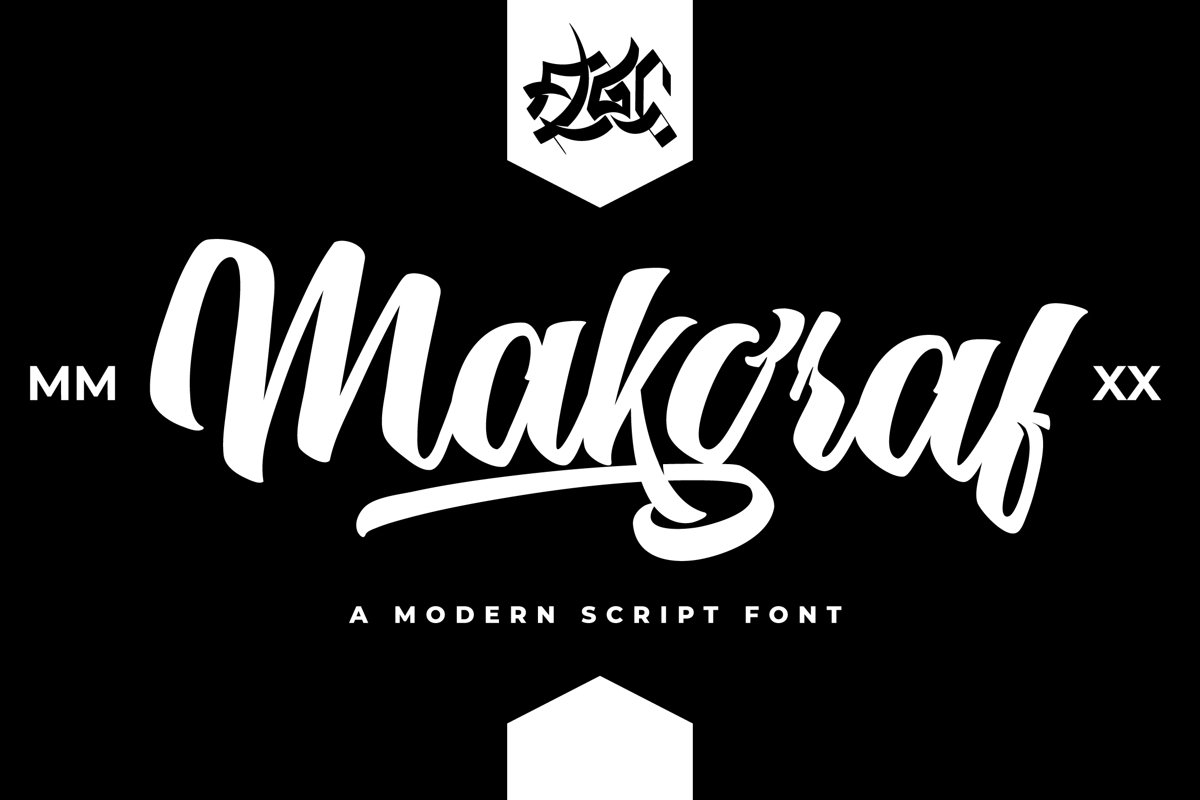
Makgraf Script
Makgraf Script is an amazing handwritten font . The font will make your design more beautiful and powerful. This font is suitable for any design like branding, quotes and etc. I hope you enjoy it !! Thanks for visiting and downloading my font!what’s inside :
• Many of alternates